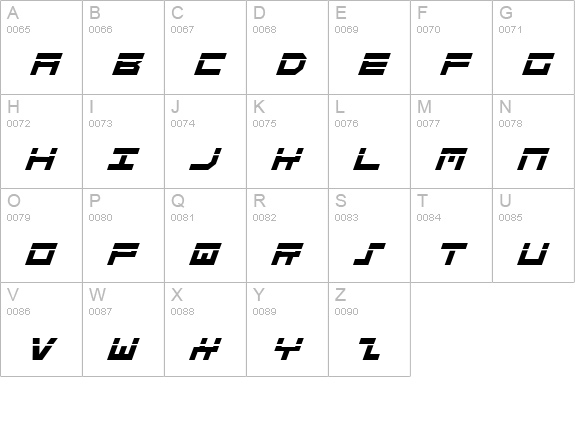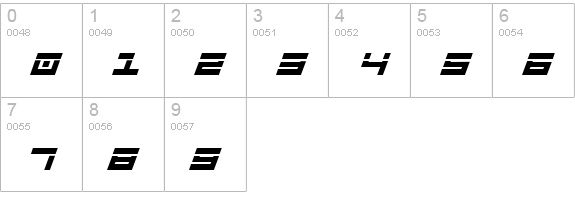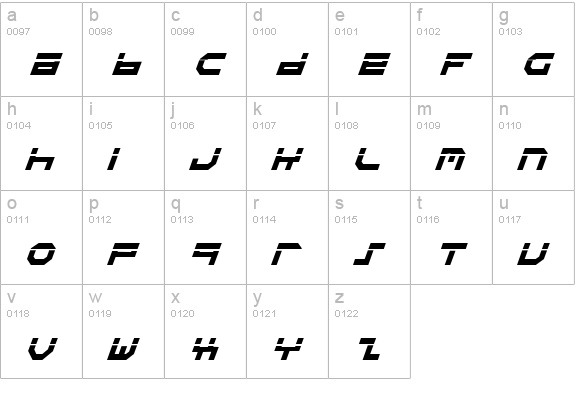
Stuntman Laser Italic is a distinctive, italic variant in the Stuntman typeface family \xE2\x80\x94 well suited to design and typography projects.
Stuntman Laser Italic font is a bold and dynamic typeface that exudes energy and excitement. With its sleek and modern design, this font is perfect for projects that require a touch of daring and creativity. The italicized style adds a sense of movement and speed, making it ideal for titles, headlines, and other attention-grabbing text. What sets Stuntman Laser Italic font apart is that it is available for free download at FontsMarket.com. This means you can easily access this unique and eye-catching font without any cost, making it a valuable resource for designers, creatives, and anyone looking to add a touch of flair to their projects. Don't miss out on the opportunity to enhance your designs with the bold and adventurous spirit of Stuntman Laser Italic font - download it for free today!